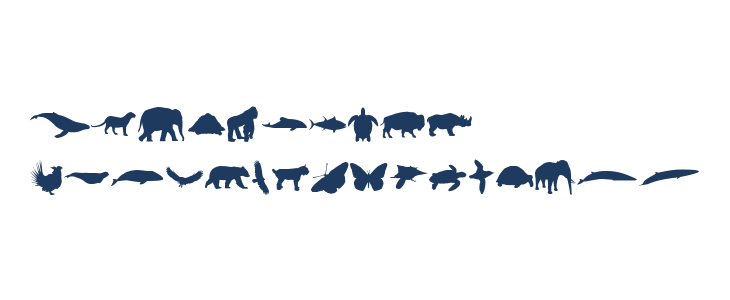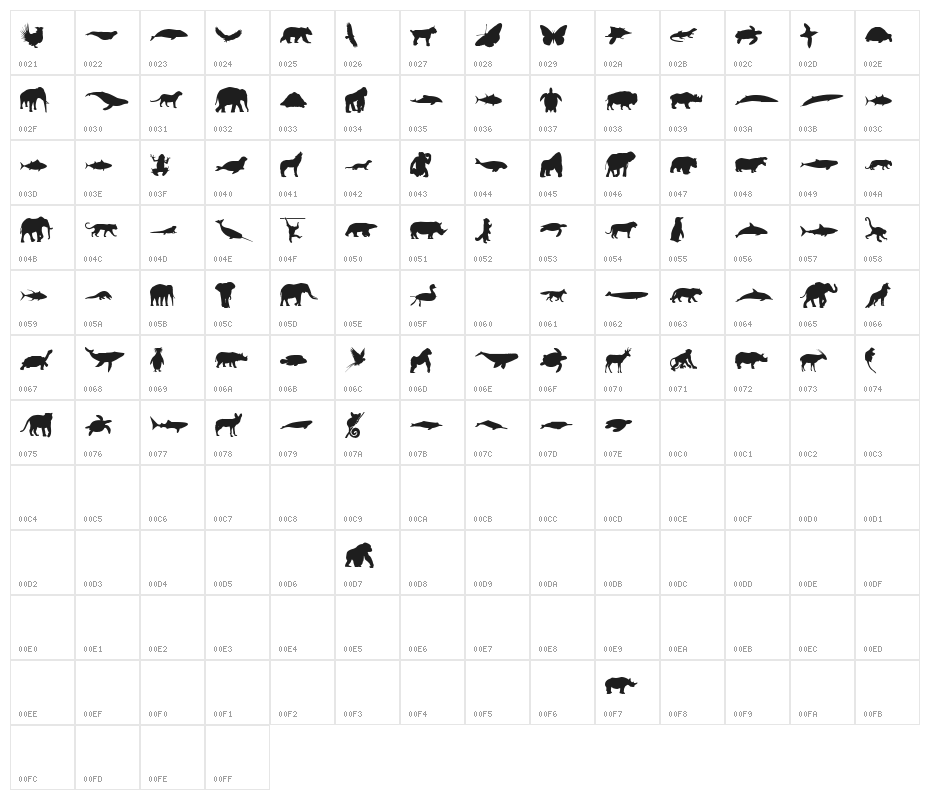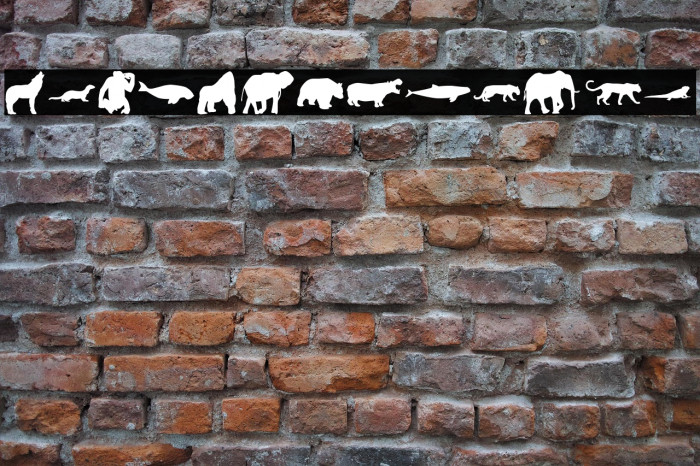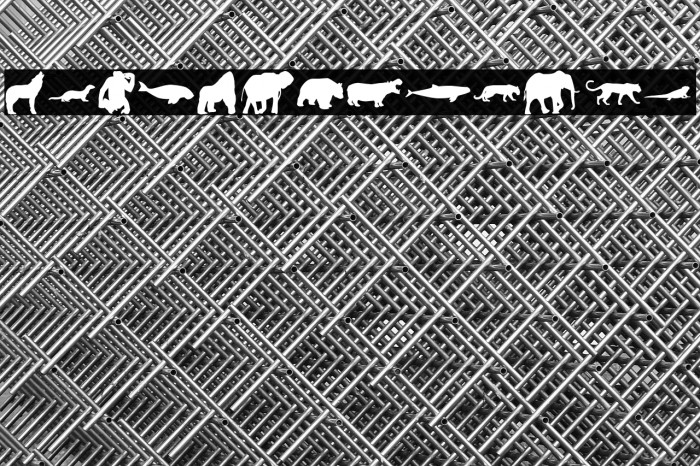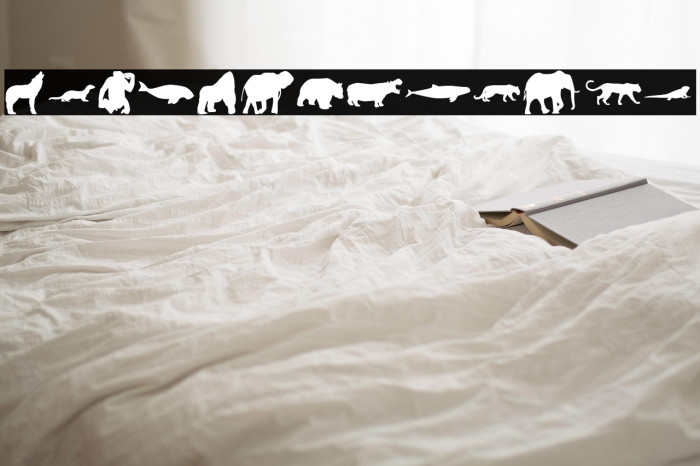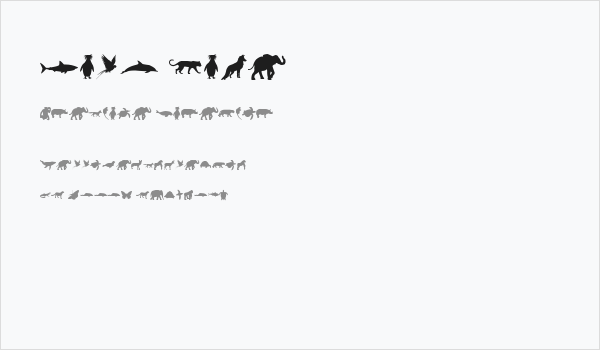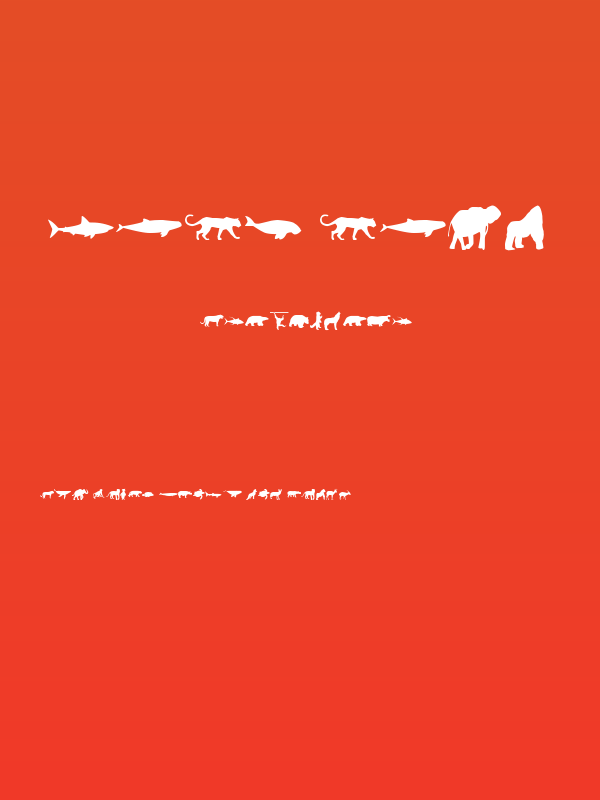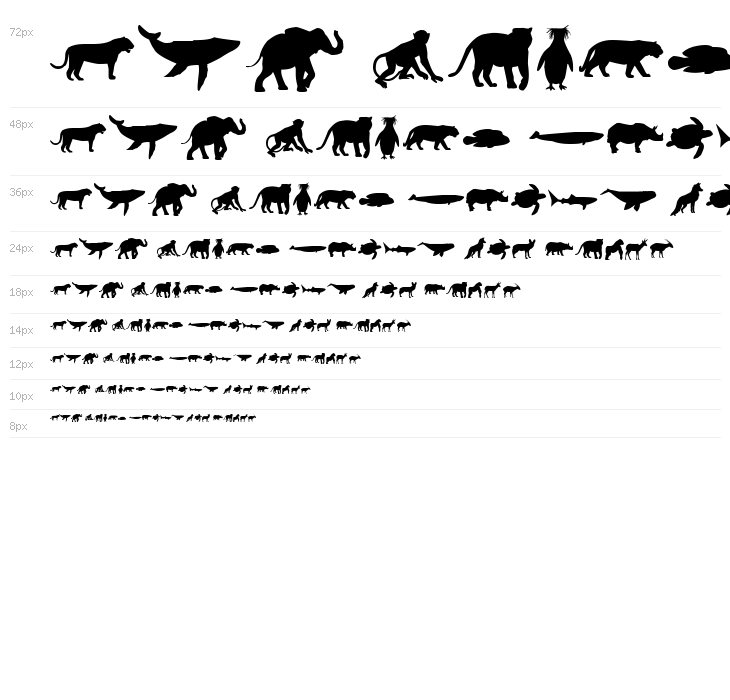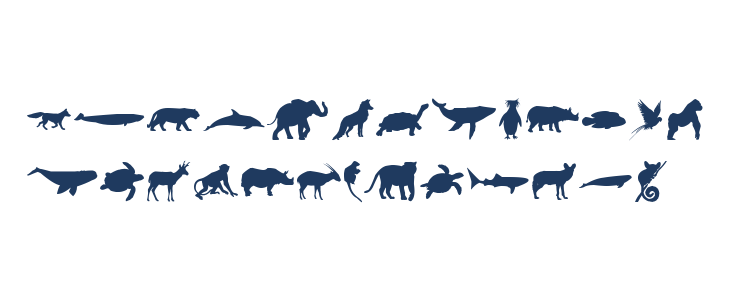
Wild Life Font
Wild Life Description
A decorative font composed of solid black animal silhouettes, each character represented by a different wild animal or marine creature in profile, creating a playful and thematic appearance.
| Overall Style | Decorative, Playful, Thematic |
| Use Case | Logos, Headlines, Posters, Educational graphics |
| Proposed Projects | ChildrenΓ’β¬β’s books, wildlife posters, educational materials, zoo branding, themed party invitations. |